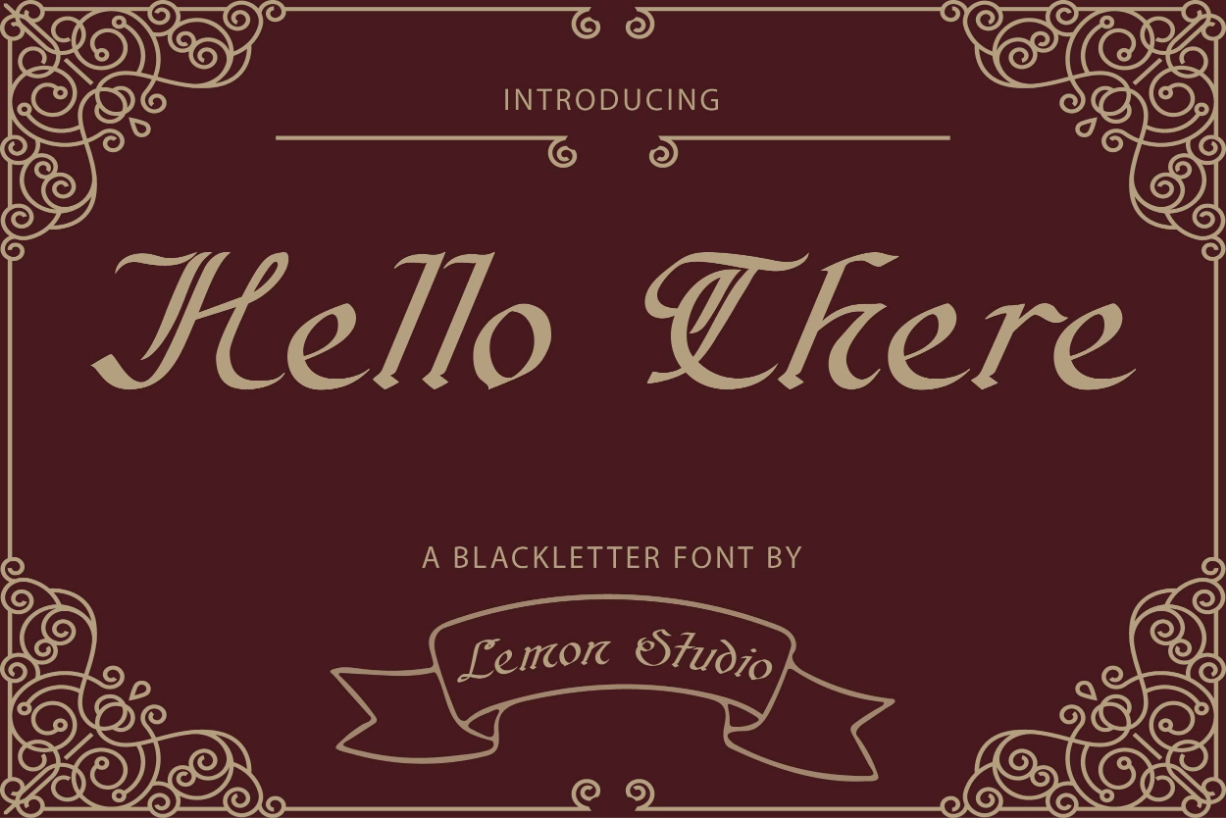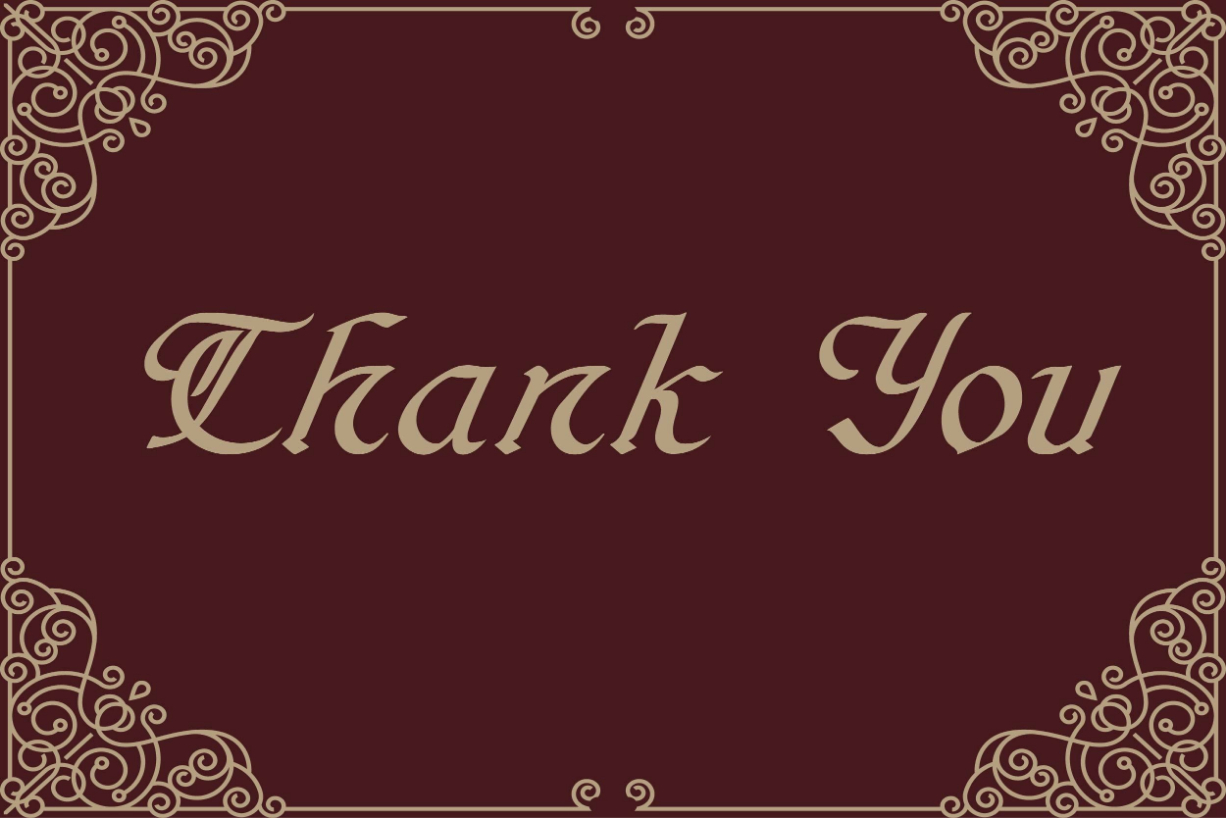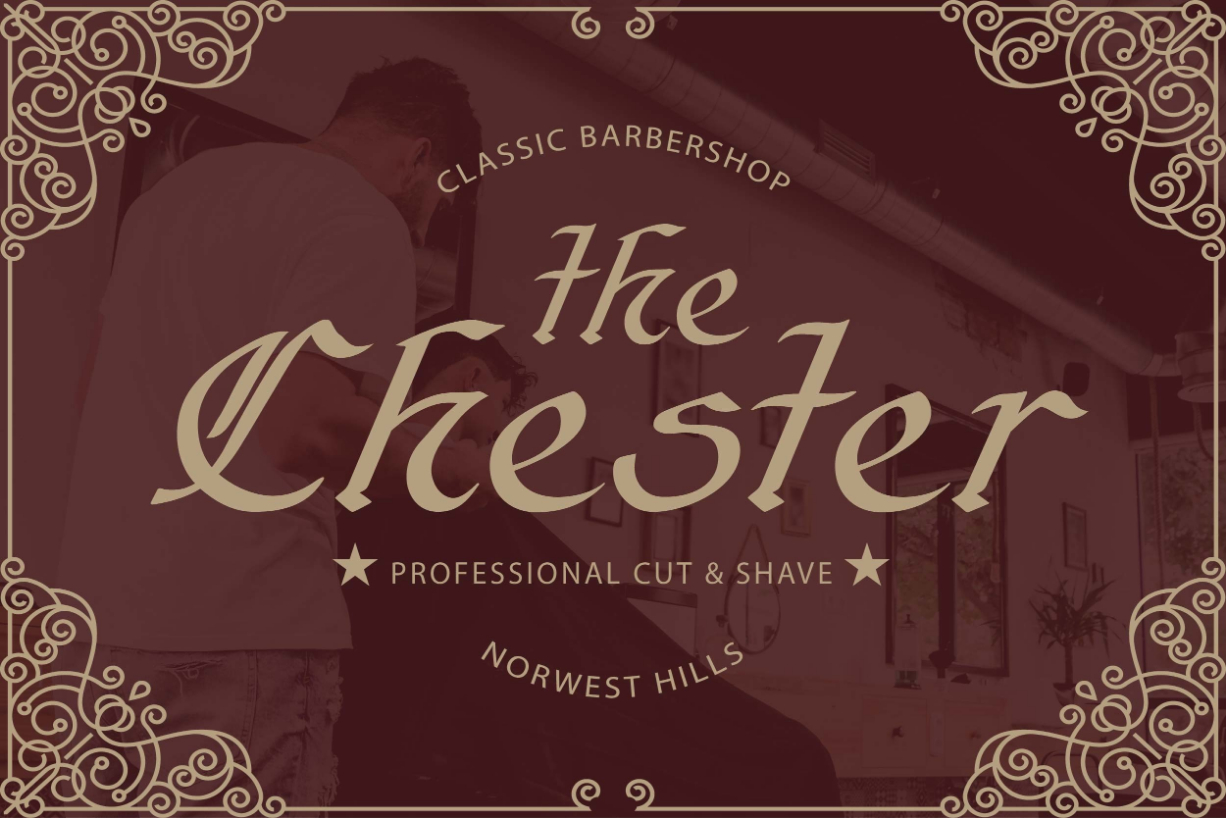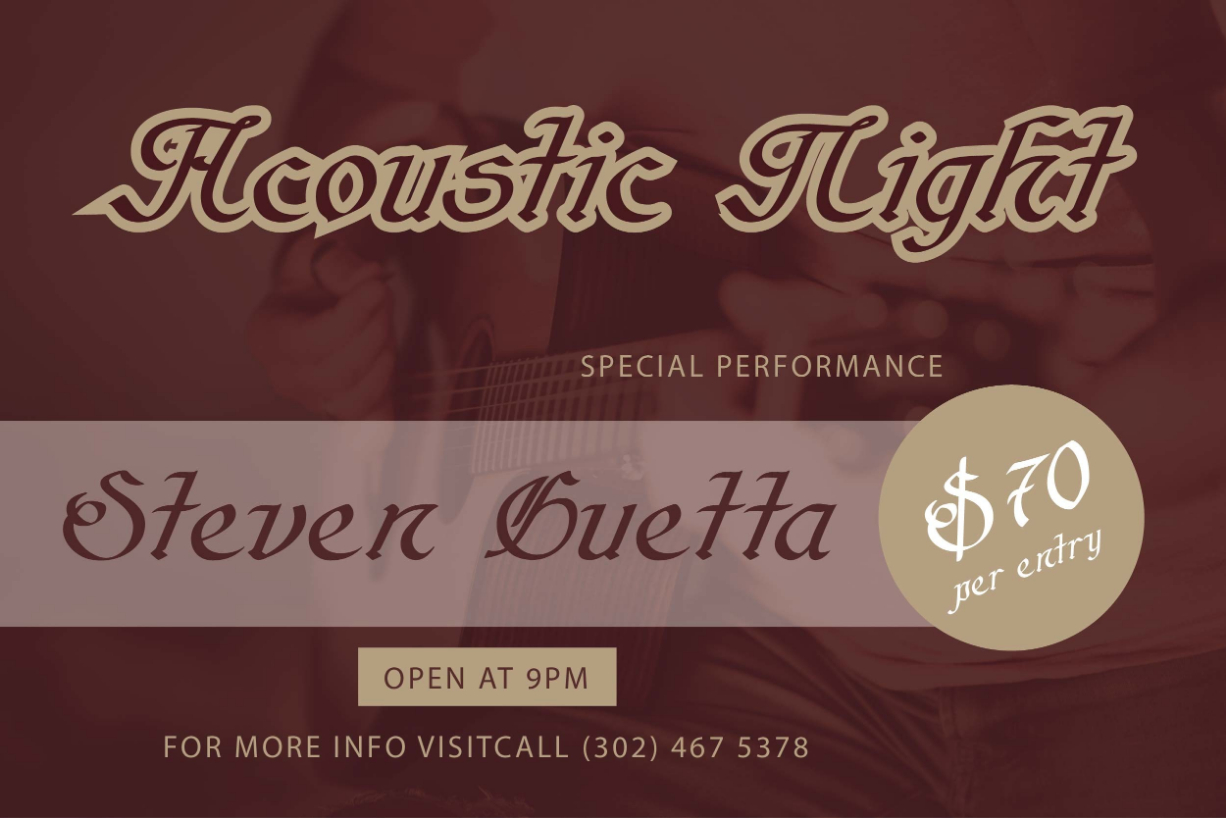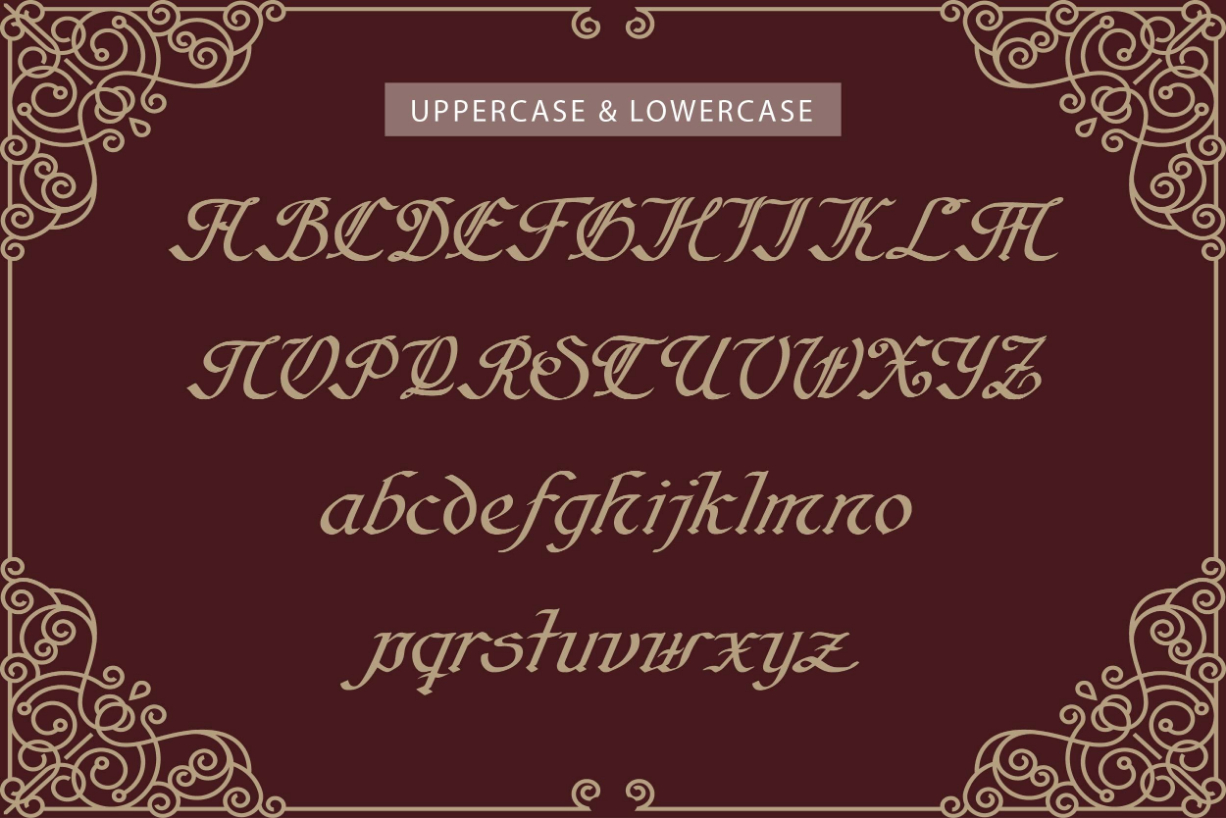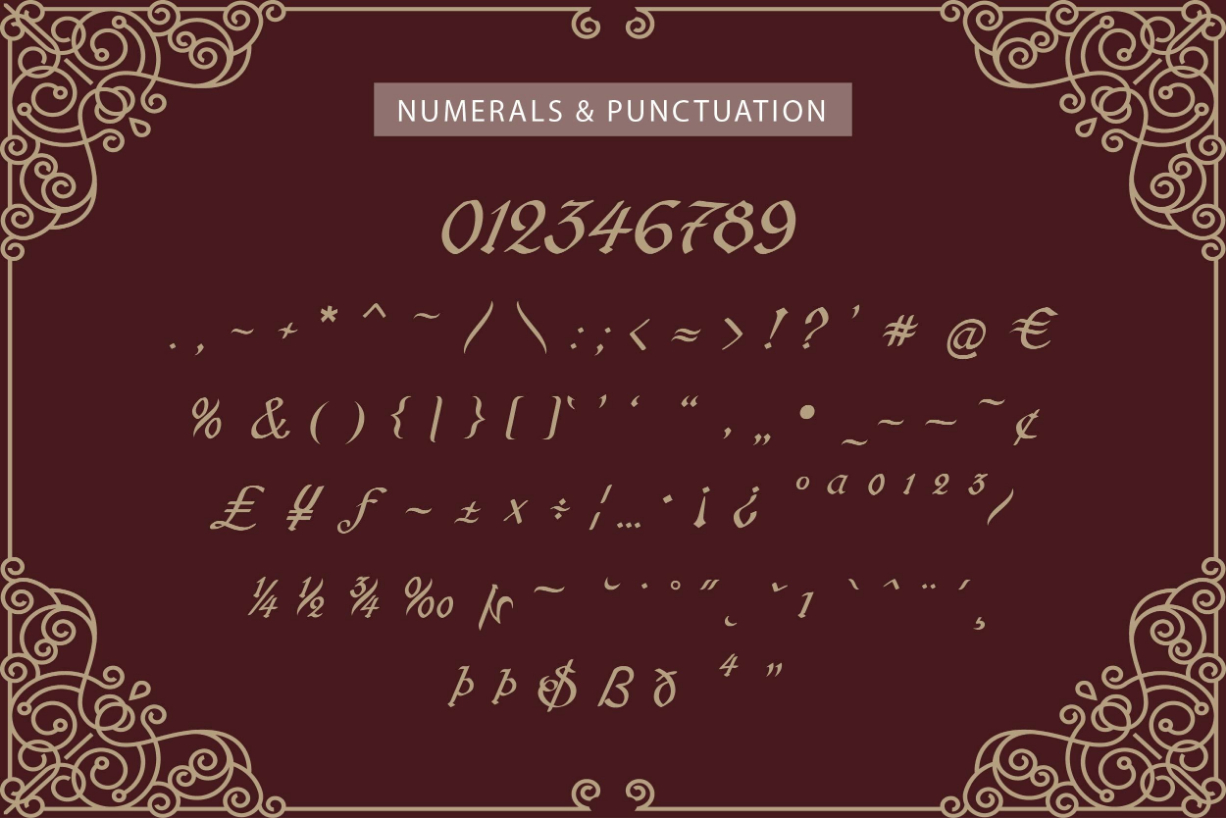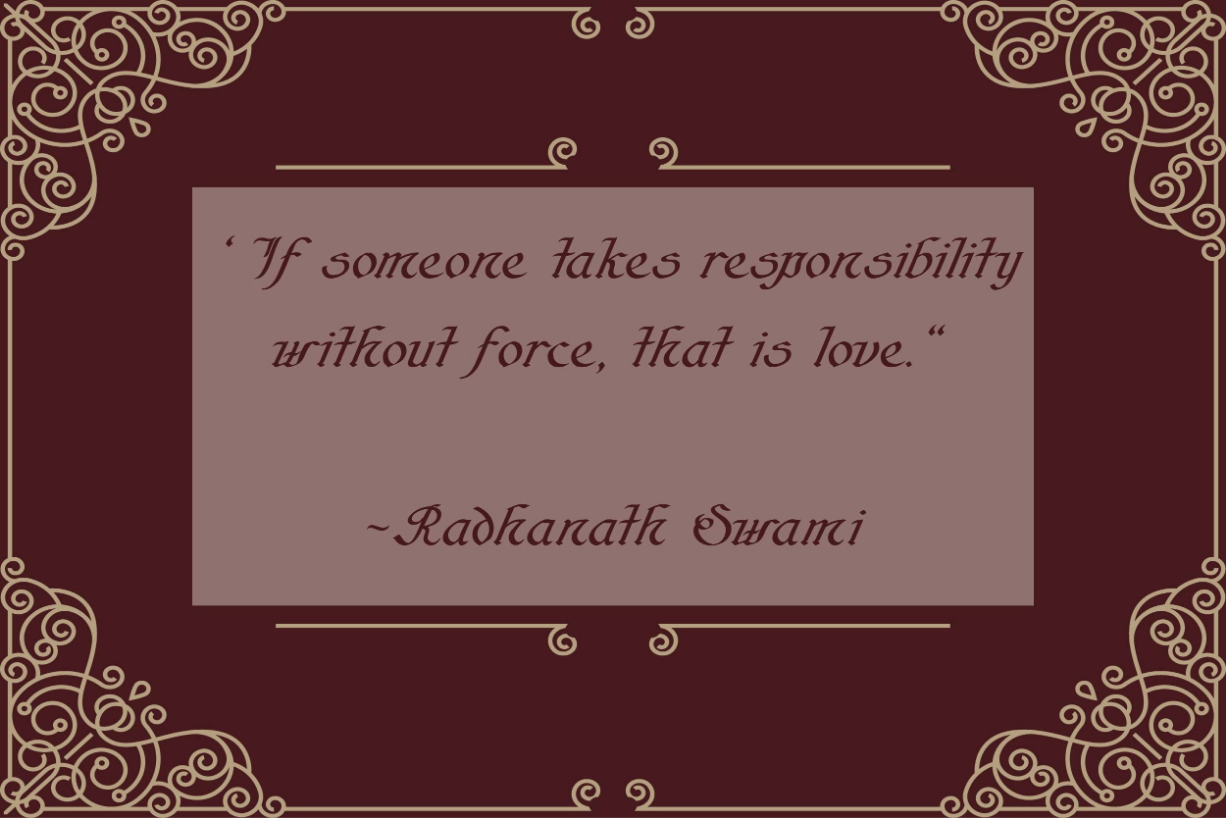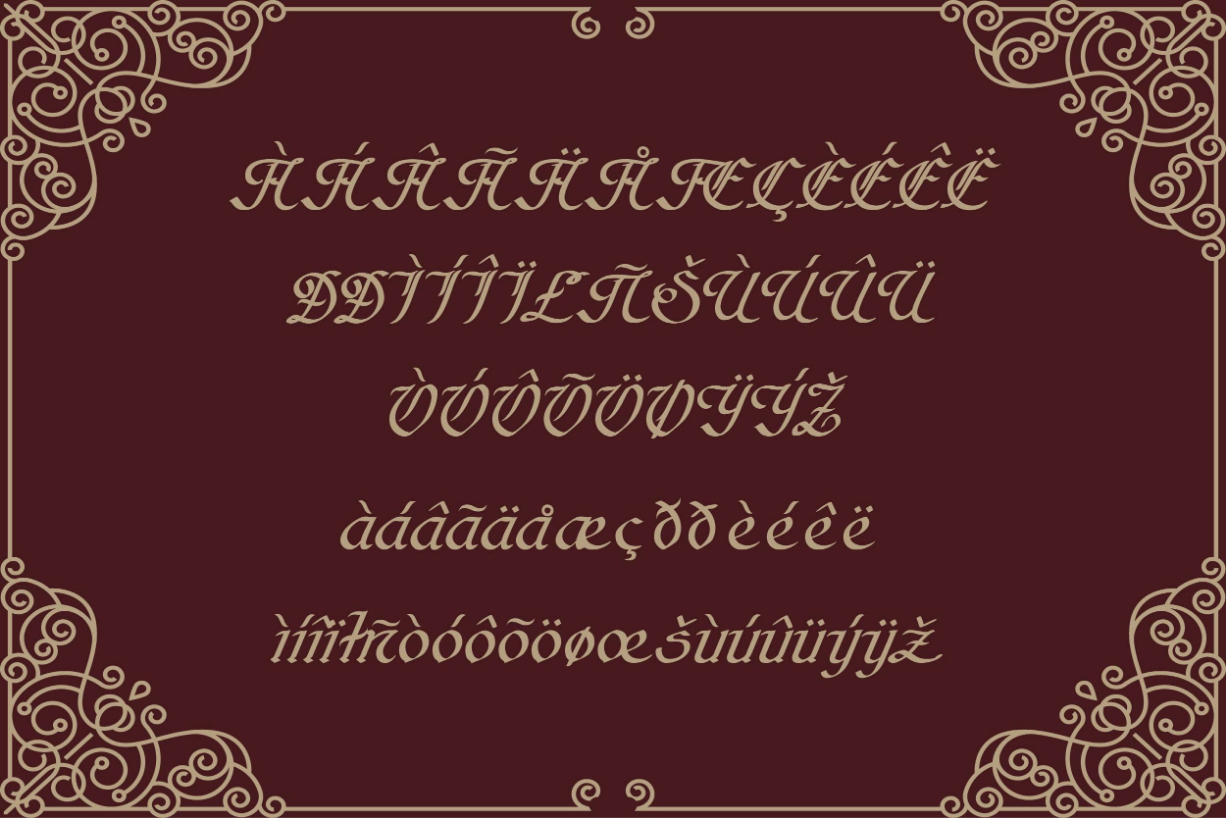
Hello There Font
About Hello There Font
Hello There is an incredibly authentic and daring blackletter font. Add this font to your favorite creative ideas and notice how it makes them stand out!